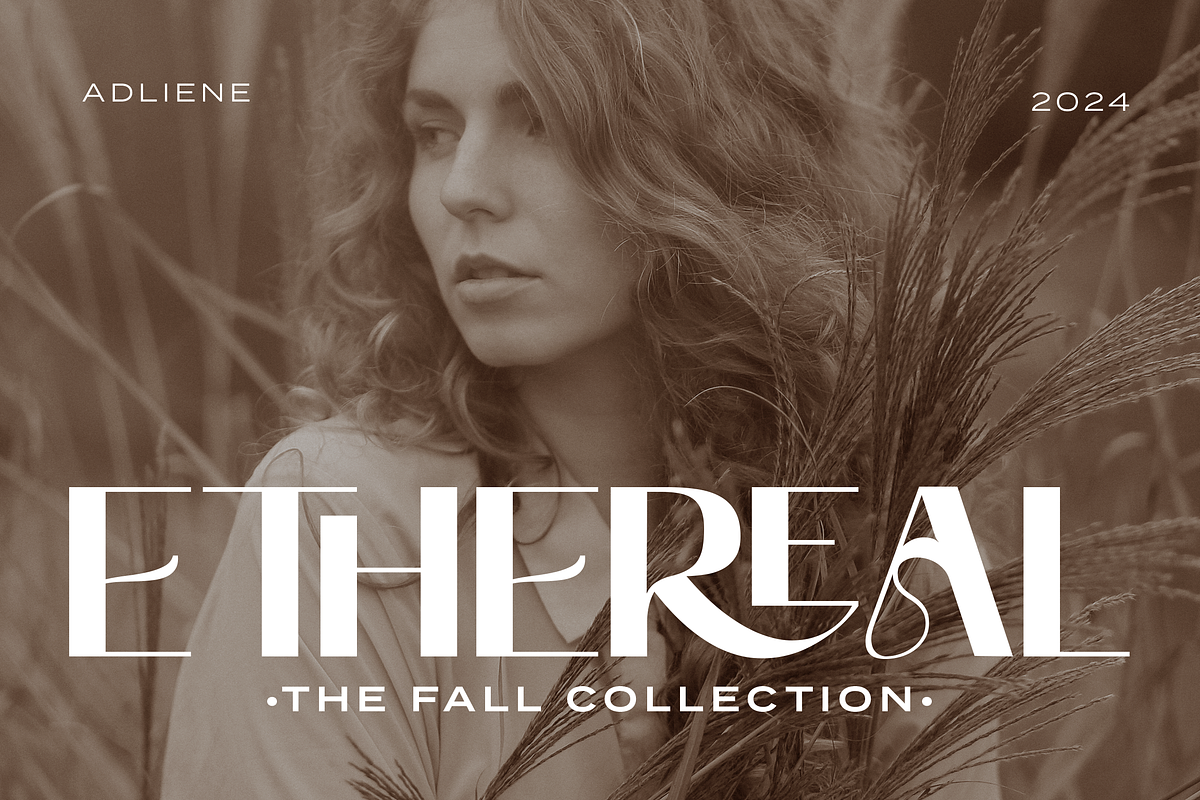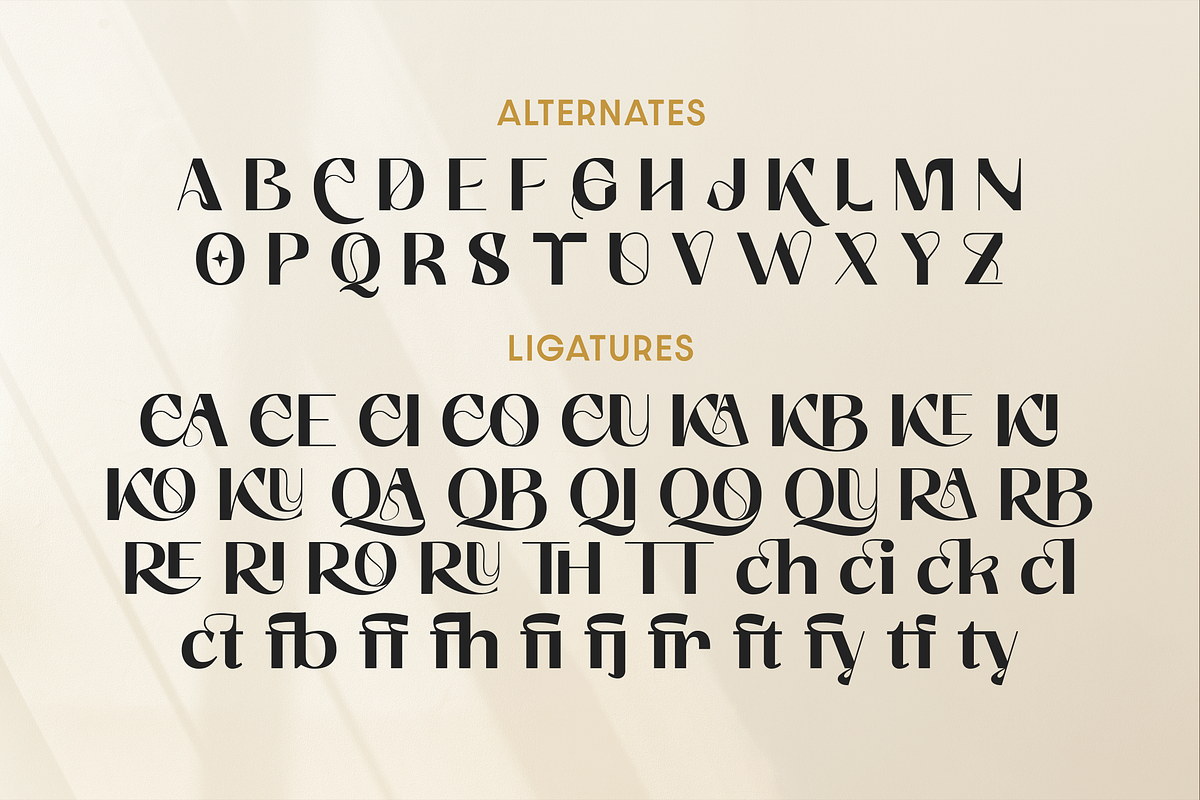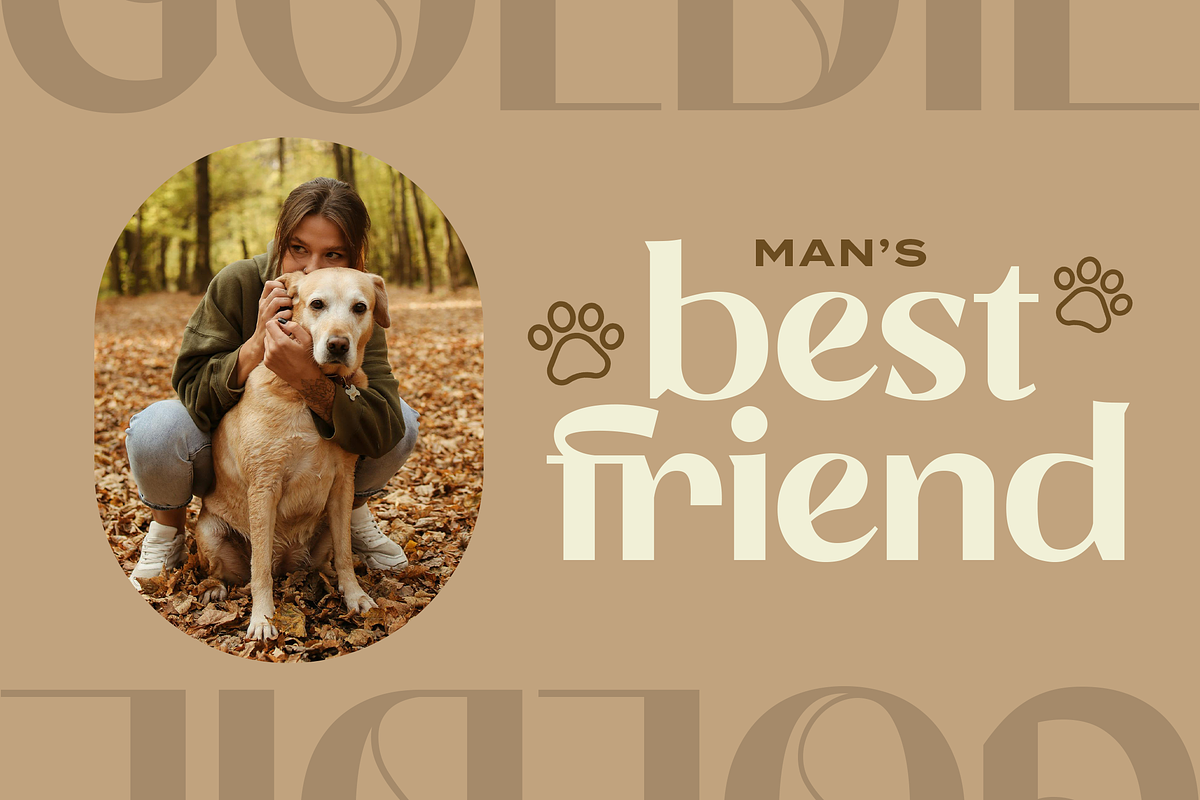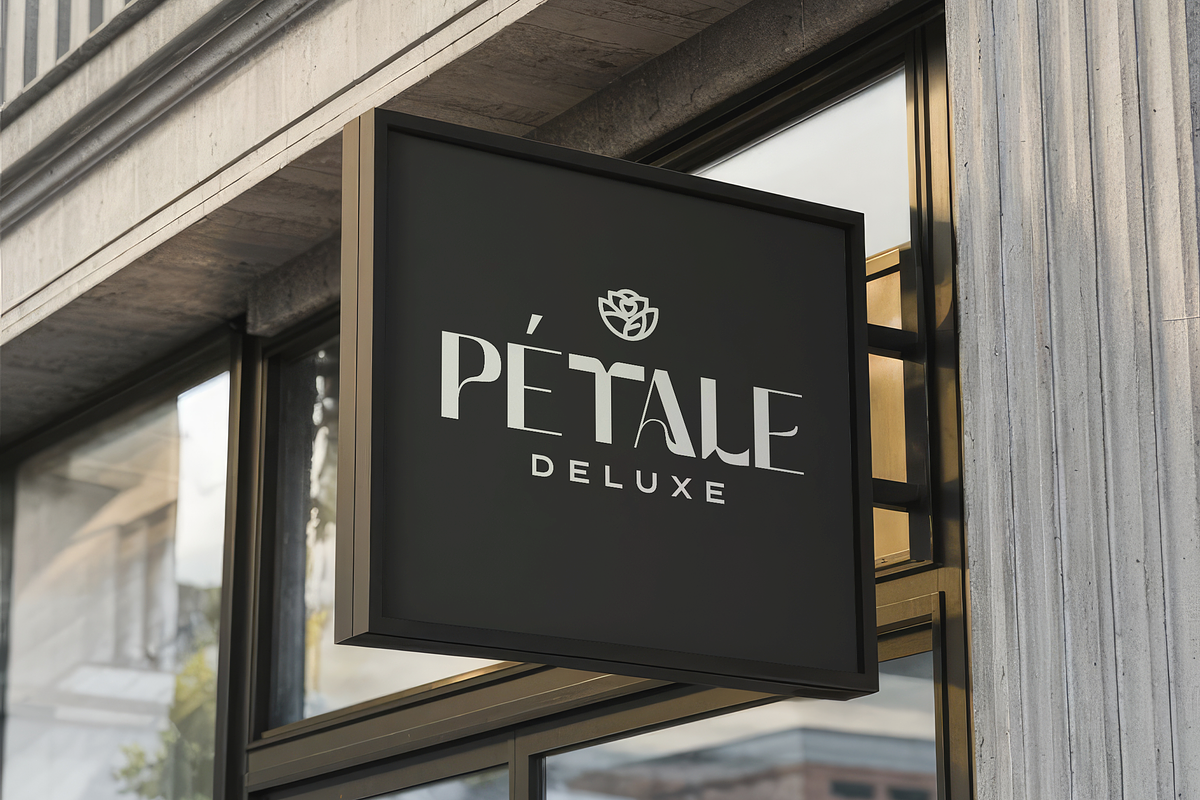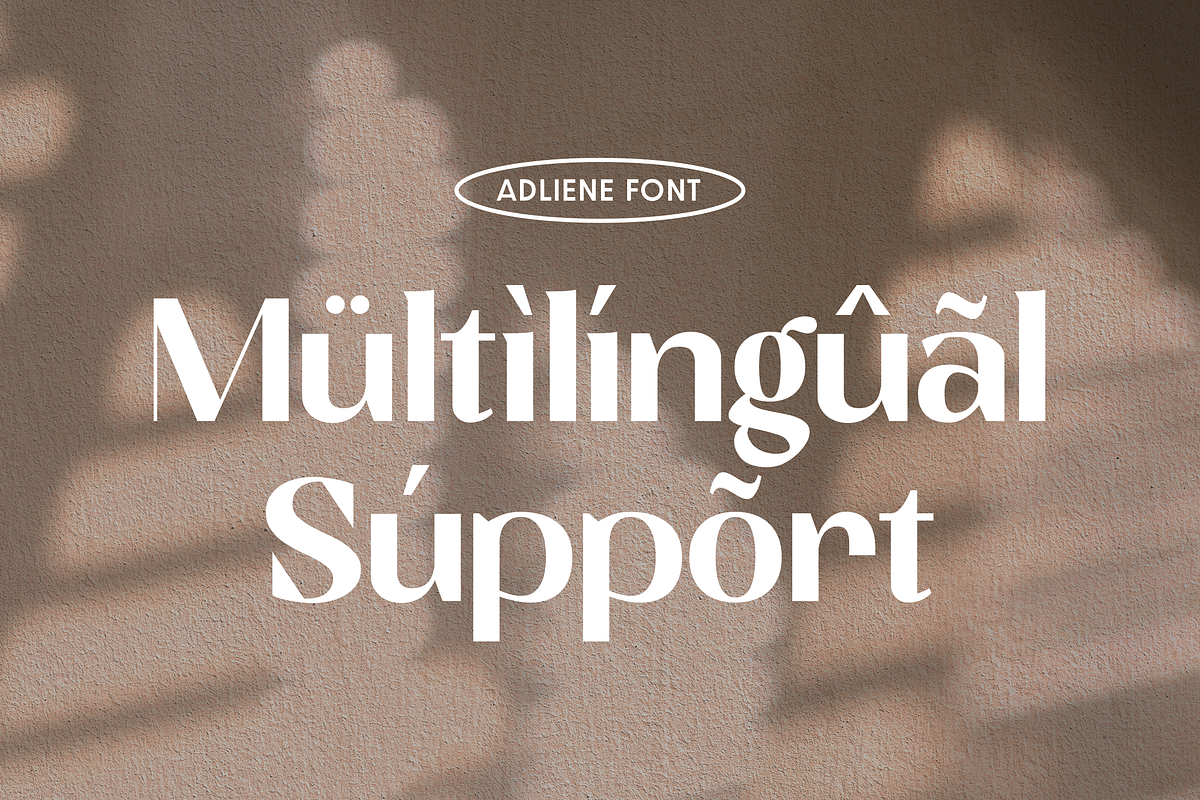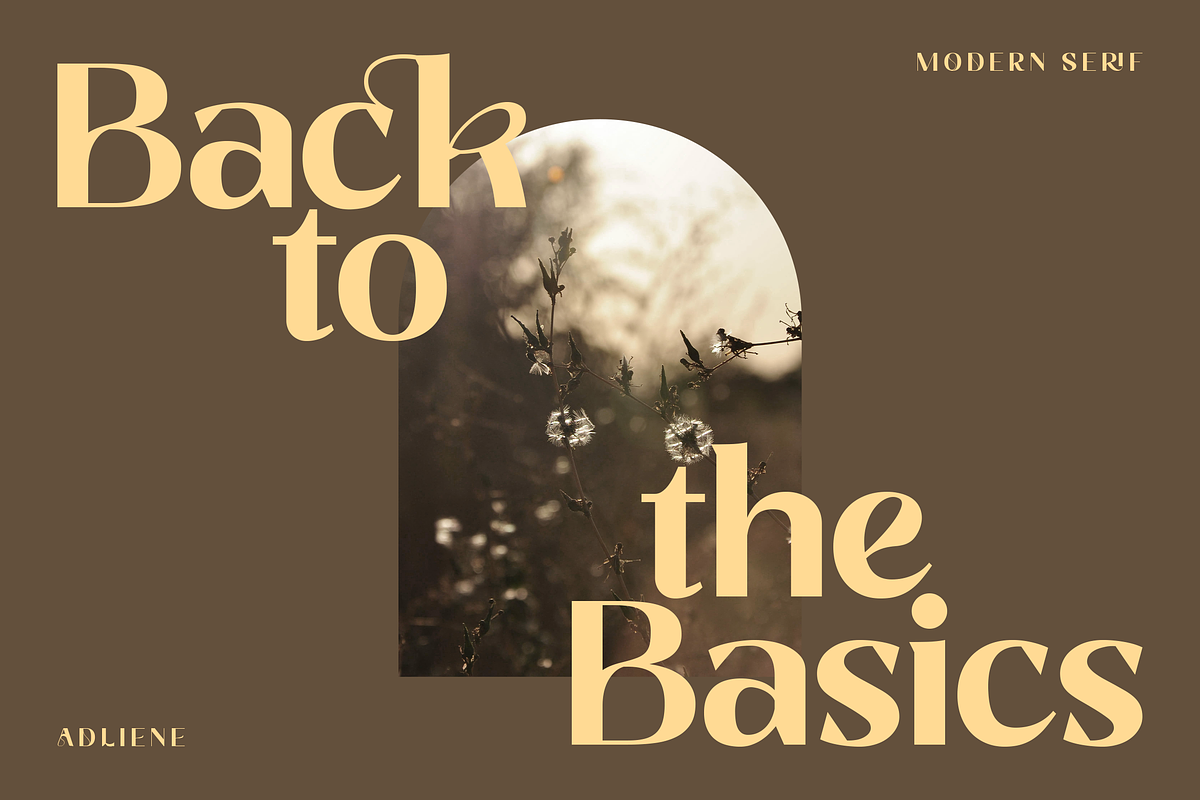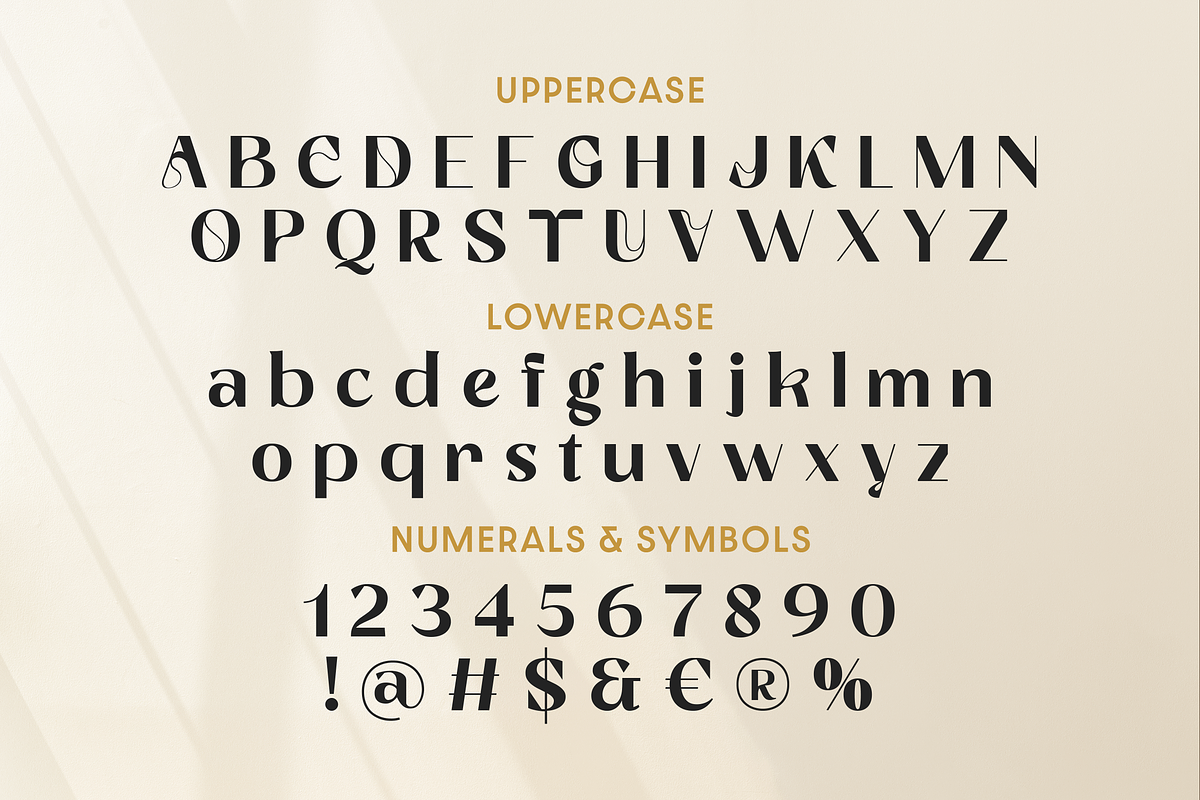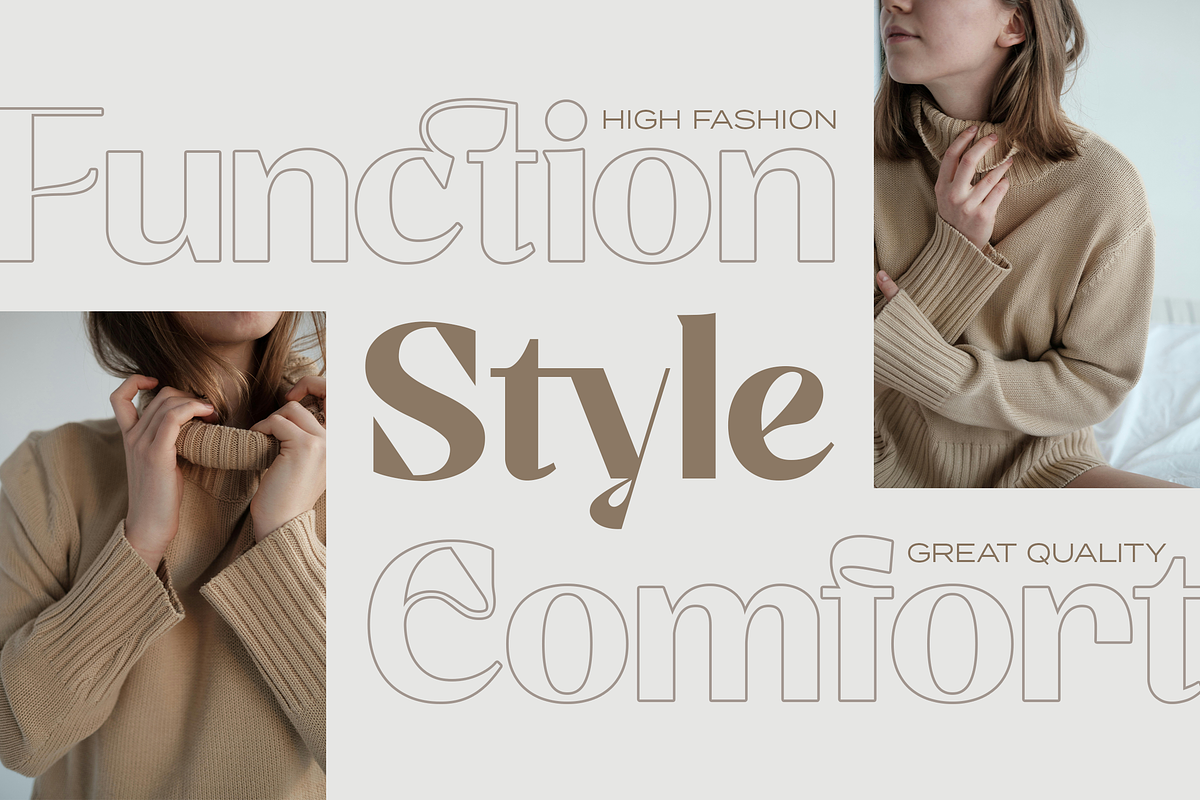
Adliene Modern Sans Serif Font
Looking to give your brand a modern twist? Whether you’re a trendsetter or a minimalist at heart, we’ve got just the thing.
Introducing Adliene - A Modern Sans Serif Font.
From striking logos to crisp digital and print layouts, Adliene delivers impact. Try it out and see how this sleek font transforms your designs.
- Multilingual & Ligature Support
- Full sets of Punctuation and Numerals